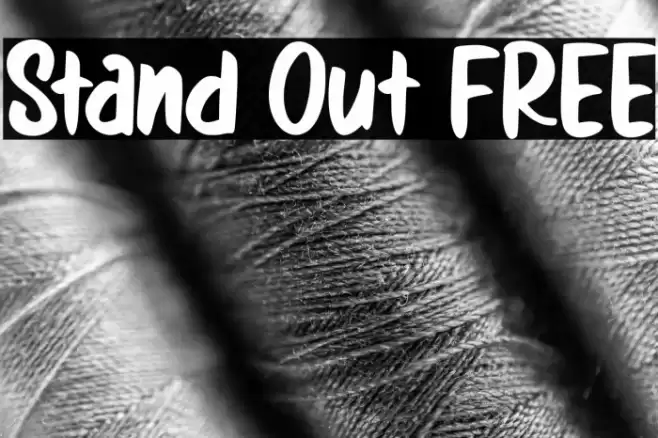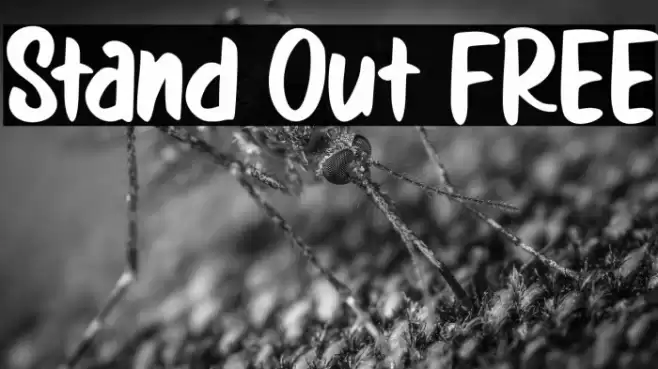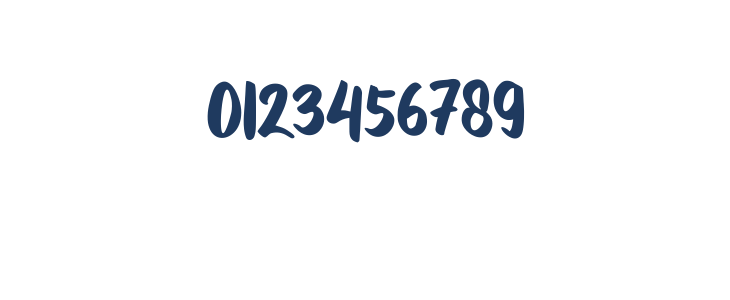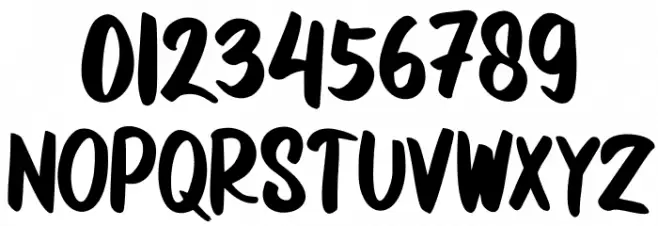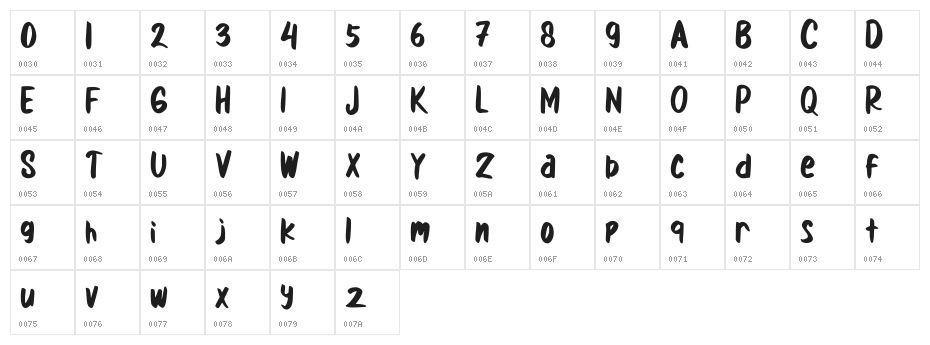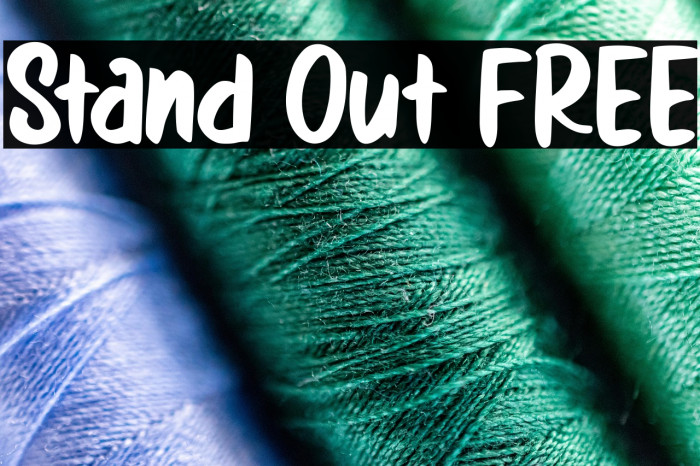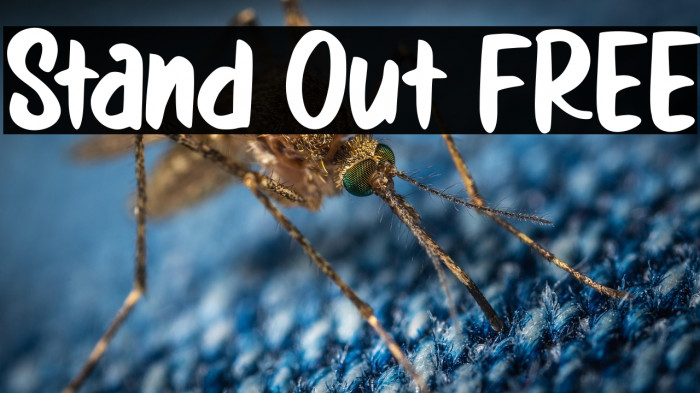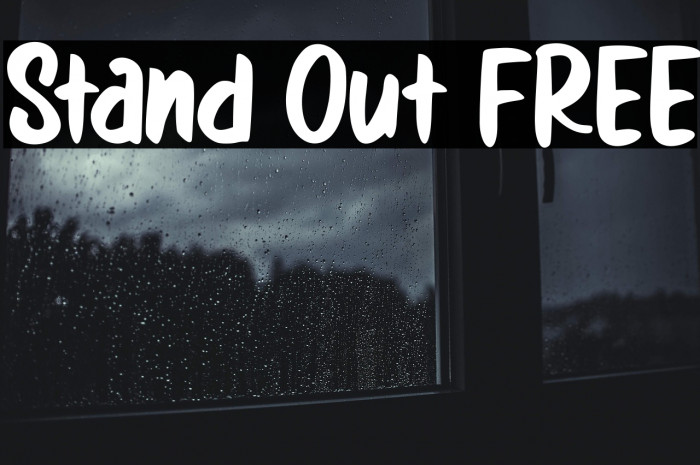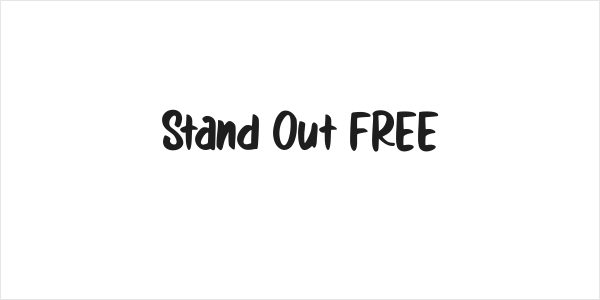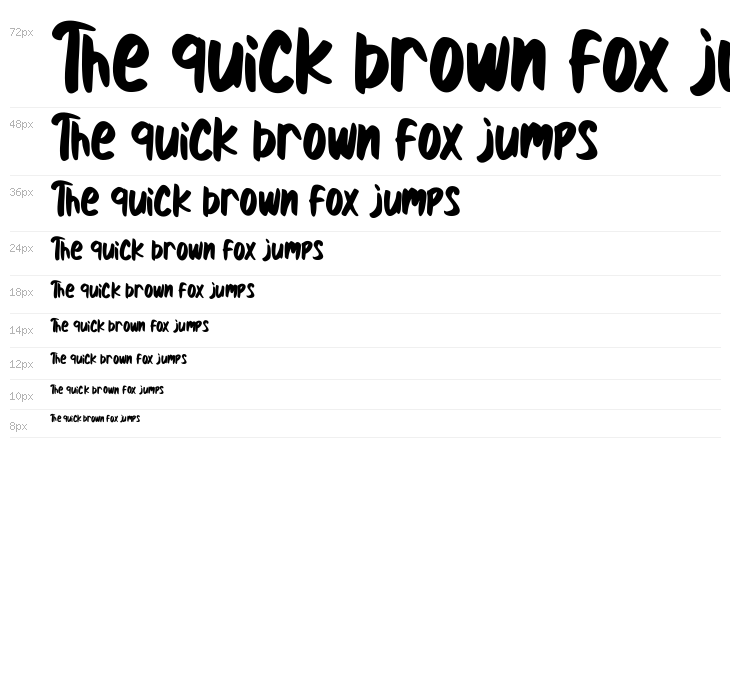
Stand Out FREE Font
Stand Out FREE Description
This font features a bold, playful style with a handwritten appearance. The characters are rounded and have a casual, friendly vibe, making them suitable for informal and creative projects. The uppercase and lowercase letters maintain a consistent style, with slight variations that add to the hand-drawn feel. The numbers and special characters are equally expressive, ensuring a cohesive look across all text elements. This font's thick strokes and smooth curves make it highly legible, even at smaller sizes, while its unique character shapes add a touch of personality.
A bold, playful handwritten font with rounded, expressive characters from Regular fonts.
- Font: Stand Out FREE
- Proposed Projects: Ideal for children's books, greeting cards, posters, and branding that requires a fun and approachable look.
- Overall Style: Playful